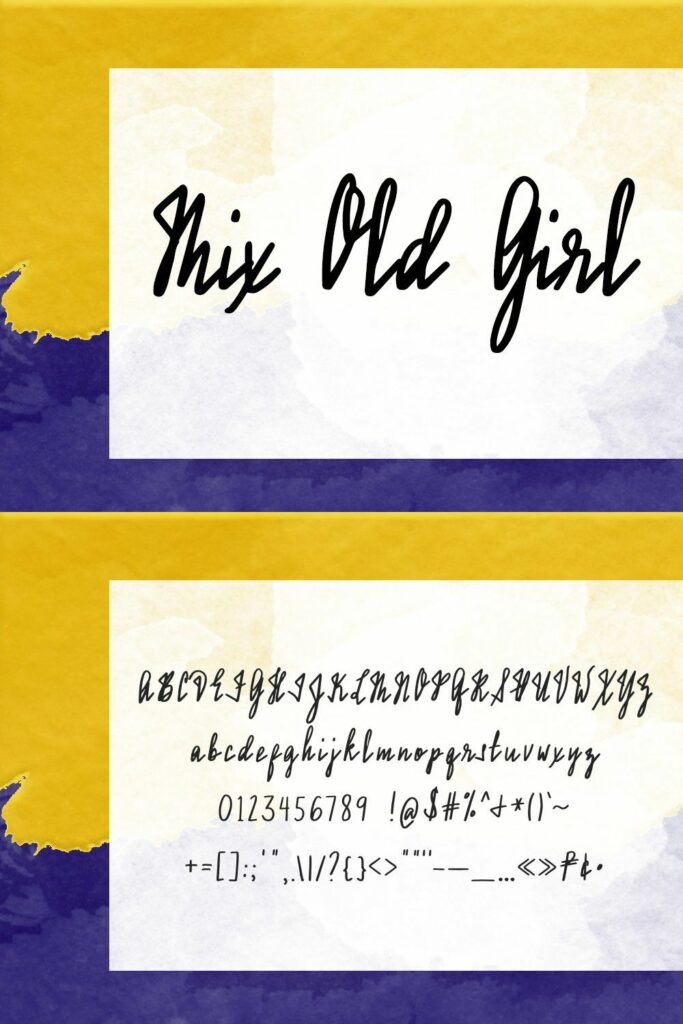
Mix Old Girl Font Free Download . Browse by alphabetical listing, by style, by author or by popularity. The name of the font is mix old girl and is made by assumption antipolo alumna mikko sumulong. Otf and/or ttf files for the typeface. Archive of freely downloadable fonts. Mix old girl, that distinctive “old girl” handwriting, turned into a font. Onlinewebfonts.com is internet most popular font online download website,offers more than 8,000,000 desktop and web font products for. Thousands of designers (famous or not) use the image font detection system to find a font or similar free fonts from an image. Otf and/or ttf files for the typeface. Mix old girl, that distinctive old girl handwriting, turned into a font. Thousands of designers (famous or not) use the image font detection system to find a font or similar free fonts from an image. Visit www.mixfonts.com to view more. If you’ve been looking for a stylish cursive font that features that distinctive assumption penmanship, you’re in luck as it is now available for purchase.
Otf and/or ttf files for the typeface. Onlinewebfonts.com is internet most popular font online download website,offers more than 8,000,000 desktop and web font products for. Visit www.mixfonts.com to view more. Mix old girl, that distinctive old girl handwriting, turned into a font. Thousands of designers (famous or not) use the image font detection system to find a font or similar free fonts from an image. If you’ve been looking for a stylish cursive font that features that distinctive assumption penmanship, you’re in luck as it is now available for purchase. Archive of freely downloadable fonts. Otf and/or ttf files for the typeface. The name of the font is mix old girl and is made by assumption antipolo alumna mikko sumulong. Mix old girl, that distinctive “old girl” handwriting, turned into a font.
Mix Old Girl Font Free Download Browse by alphabetical listing, by style, by author or by popularity. Otf and/or ttf files for the typeface. Thousands of designers (famous or not) use the image font detection system to find a font or similar free fonts from an image. Onlinewebfonts.com is internet most popular font online download website,offers more than 8,000,000 desktop and web font products for. Mix old girl, that distinctive old girl handwriting, turned into a font. Browse by alphabetical listing, by style, by author or by popularity. The name of the font is mix old girl and is made by assumption antipolo alumna mikko sumulong. Thousands of designers (famous or not) use the image font detection system to find a font or similar free fonts from an image. Visit www.mixfonts.com to view more. Archive of freely downloadable fonts. Otf and/or ttf files for the typeface. Mix old girl, that distinctive “old girl” handwriting, turned into a font. If you’ve been looking for a stylish cursive font that features that distinctive assumption penmanship, you’re in luck as it is now available for purchase.
Mix Old Girl Font Generator at Pauline Kilgore blog Mix Old Girl Font Free Download Browse by alphabetical listing, by style, by author or by popularity. Otf and/or ttf files for the typeface. Onlinewebfonts.com is internet most popular font online download website,offers more than 8,000,000 desktop and web font products for. Mix old girl, that distinctive old girl handwriting, turned into a font. Thousands of designers (famous or. Mix Old Girl Font Free Download.
Lonely Girl Font Free Download Mix Old Girl Font Free Download If you’ve been looking for a stylish cursive font that features that distinctive assumption penmanship, you’re in luck as it is now available for purchase. Otf and/or ttf files for the typeface. The name of the font is mix old girl and is made by assumption antipolo alumna mikko sumulong. Otf and/or ttf files for the typeface. Browse by alphabetical. Mix Old Girl Font Free Download.
21+ Best Girly Fonts TTF, OTF Download Design Trends Premium PSD, Vector Downloads Mix Old Girl Font Free Download Otf and/or ttf files for the typeface. Browse by alphabetical listing, by style, by author or by popularity. Mix old girl, that distinctive “old girl” handwriting, turned into a font. Thousands of designers (famous or not) use the image font detection system to find a font or similar free fonts from an image. If you’ve been looking for a stylish. Mix Old Girl Font Free Download.
Girl Handwriting Fonts Mix Old Girl Font Free Download Mix old girl, that distinctive “old girl” handwriting, turned into a font. Browse by alphabetical listing, by style, by author or by popularity. Otf and/or ttf files for the typeface. Thousands of designers (famous or not) use the image font detection system to find a font or similar free fonts from an image. Mix old girl, that distinctive old girl. Mix Old Girl Font Free Download.
Mix Old Girl Type Bringing a Community Together Behance Mix Old Girl Font Free Download Otf and/or ttf files for the typeface. The name of the font is mix old girl and is made by assumption antipolo alumna mikko sumulong. Thousands of designers (famous or not) use the image font detection system to find a font or similar free fonts from an image. Mix old girl, that distinctive “old girl” handwriting, turned into a font.. Mix Old Girl Font Free Download.
Mix Old Girl Font Generator at Pauline Kilgore blog Mix Old Girl Font Free Download Thousands of designers (famous or not) use the image font detection system to find a font or similar free fonts from an image. Otf and/or ttf files for the typeface. Browse by alphabetical listing, by style, by author or by popularity. If you’ve been looking for a stylish cursive font that features that distinctive assumption penmanship, you’re in luck as. Mix Old Girl Font Free Download.
Crafty Girls Font Free Download Mix Old Girl Font Free Download If you’ve been looking for a stylish cursive font that features that distinctive assumption penmanship, you’re in luck as it is now available for purchase. Thousands of designers (famous or not) use the image font detection system to find a font or similar free fonts from an image. The name of the font is mix old girl and is made. Mix Old Girl Font Free Download.
Mix Old Girl Old girl, Wedding fonts, Girl Mix Old Girl Font Free Download Otf and/or ttf files for the typeface. Onlinewebfonts.com is internet most popular font online download website,offers more than 8,000,000 desktop and web font products for. Browse by alphabetical listing, by style, by author or by popularity. Mix old girl, that distinctive old girl handwriting, turned into a font. Visit www.mixfonts.com to view more. Thousands of designers (famous or not) use. Mix Old Girl Font Free Download.
Mix Old Girl Font Generator at Pauline Kilgore blog Mix Old Girl Font Free Download Browse by alphabetical listing, by style, by author or by popularity. The name of the font is mix old girl and is made by assumption antipolo alumna mikko sumulong. Thousands of designers (famous or not) use the image font detection system to find a font or similar free fonts from an image. Otf and/or ttf files for the typeface. Thousands. Mix Old Girl Font Free Download.